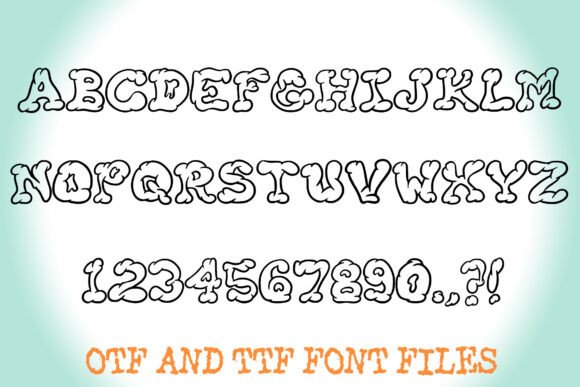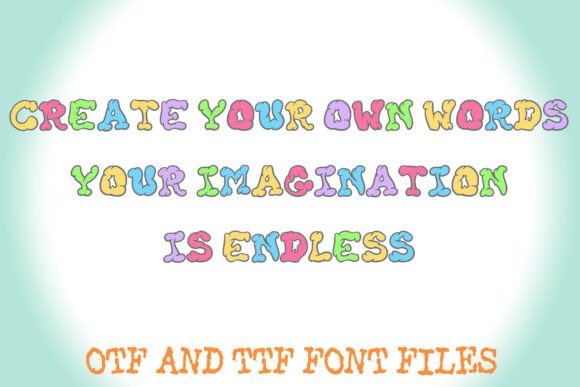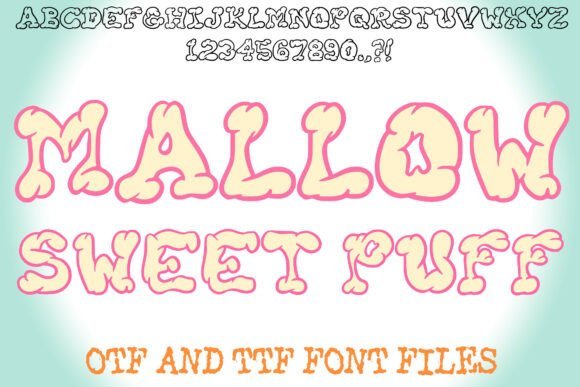
Introduction to Mallow Sweet Puff Font
Mallow Sweet Puff Font is a soft, bouncy, and delightfully sweet display font that looks like it’s made of fluffy marshmallows.
This playful hand-drawn typeface brings cozy, candy-coated charm to any project With its puffy bubble letters and fun, rounded style, Mallow Sweet Puff is perfect for stickers, Cricut crafts, T-shirts, children’s designs, logos, invitations, and Kawaii art.
Key Features of Mallow Sweet Puff Font
Why Choose Mallow Sweet Puff Font?
Mallow Sweet Puff Font offers exceptional quality and versatility, making it a valuable addition to your design toolkit. Whether you’re creating for personal projects or commercial use, Mallow Sweet Puff Font delivers professional results.